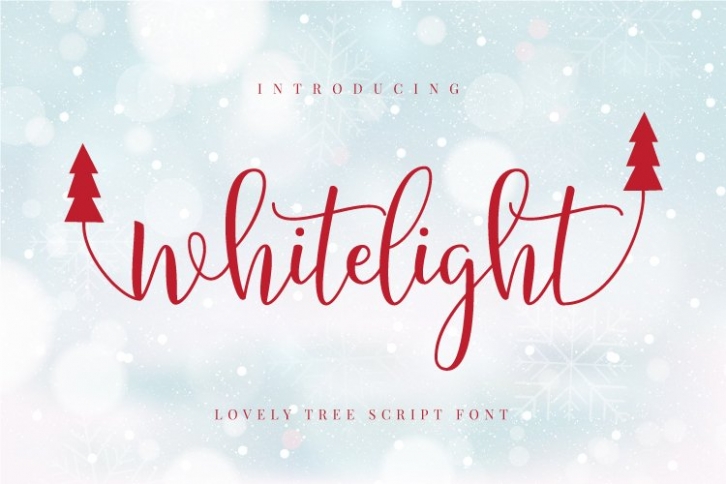
Whitelight is a gorgeous font that was realeased on November 12, 2020. The font can be used in many style contexts and design environments. Perfect for invitations, magazines, websites, logos, and more! It was designed by HaffastudioCr and the file size is 18.95 MB. Thanks for checking out this font!